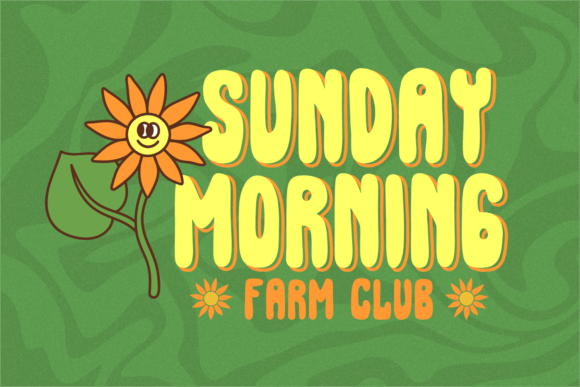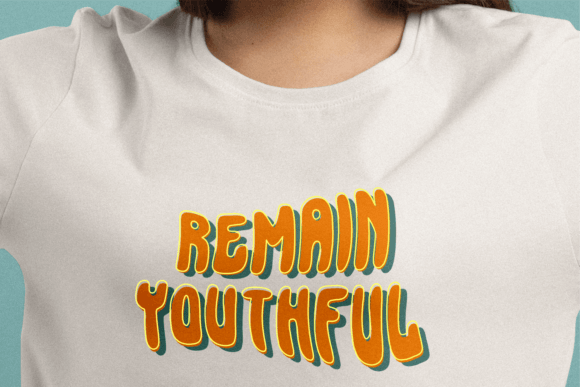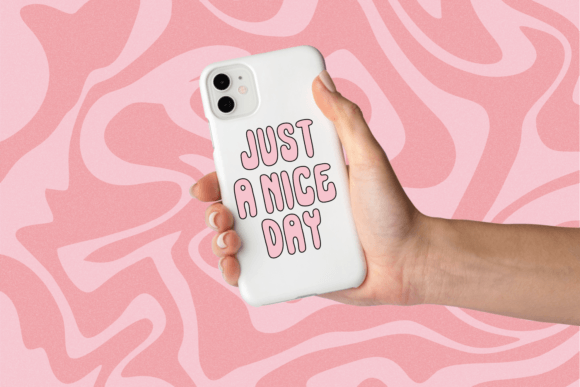
Introduction to Funky Juice Font
You know that moment when a design concept just clicks, and you can’t wait to bring it to life? For many designers, that moment is when they stumble upon the perfect font to elevate their creative project. If you’re one of them, you’re in luck, because today we’re diving into the world of Funky Juice Font, a bold and impactful typeface that’s sure to grab attention.
With its unique letterforms and stylistic details, Funky Juice Font is the perfect addition to any design arsenal. Whether you’re working on a high-quality branding project or need a font to stand out on a transparent background, this versatile font has got you covered. And the best part? It’s available for free download, making it an instant favorite among designers.
As a valuable resource for designers, Funky Juice Font offers a level of creativity and expression that’s hard to find in other fonts. So, let’s take a closer look at what makes this font so special and how you can use it to take your designs to the next level.
Key Features of Funky Juice Font
- Unique, hand-drawn design for creative projects and artistic expressions.
- High-quality font with transparent background for seamless integration into various design elements.
- Designed to be used at any resolution, making it ideal for print, web, and digital projects.
- Perfect for designers and artists looking for a fun, quirky, and high-quality design resource.
Honest Review: Funky Juice Font
I recently had the chance to work with the Funky Juice Font, and I must say it’s a unique addition to any design project. ✨ One of the standout features is its transparent background, which makes it incredibly versatile. This means you can easily blend it with other design elements to create a cohesive look.
- Transparent background for easy integration with other design elements
- High-quality design suitable for various creative projects
- Some users may find the font’s quirky style too bold or overwhelming
- May not be suitable for traditional or conservative design projects
Overall, I was impressed with the Funky Juice Font’s unique style and versatility. While it may not be for everyone, it’s an excellent addition to any design library, especially for those looking for a free and high-quality design resource.
Getting the Most Out of Funky Juice Font
To get the most out of the Funky Juice Font, experiment with different font sizes, colors, and styles to create a unique look for your design project. You can also combine the font with other design resources to create a high-quality and visually appealing design.
The Funky Juice Font is ideal for creative projects such as branding, marketing materials, and social media graphics. Its unique style and high-quality design make it a valuable resource for designers and non-designers alike.